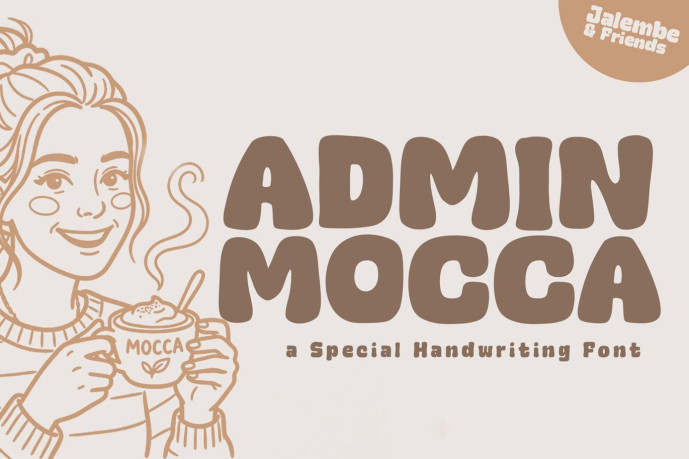
Admin Mocca Font
Designer: Khurasan
Admin Mocca Font is a fun and bold display font designed with a cheerful theme for your creative projects. This font is perfect for logos, branding, greeting cards, posters, and any design that needs a touch of personality and joy.